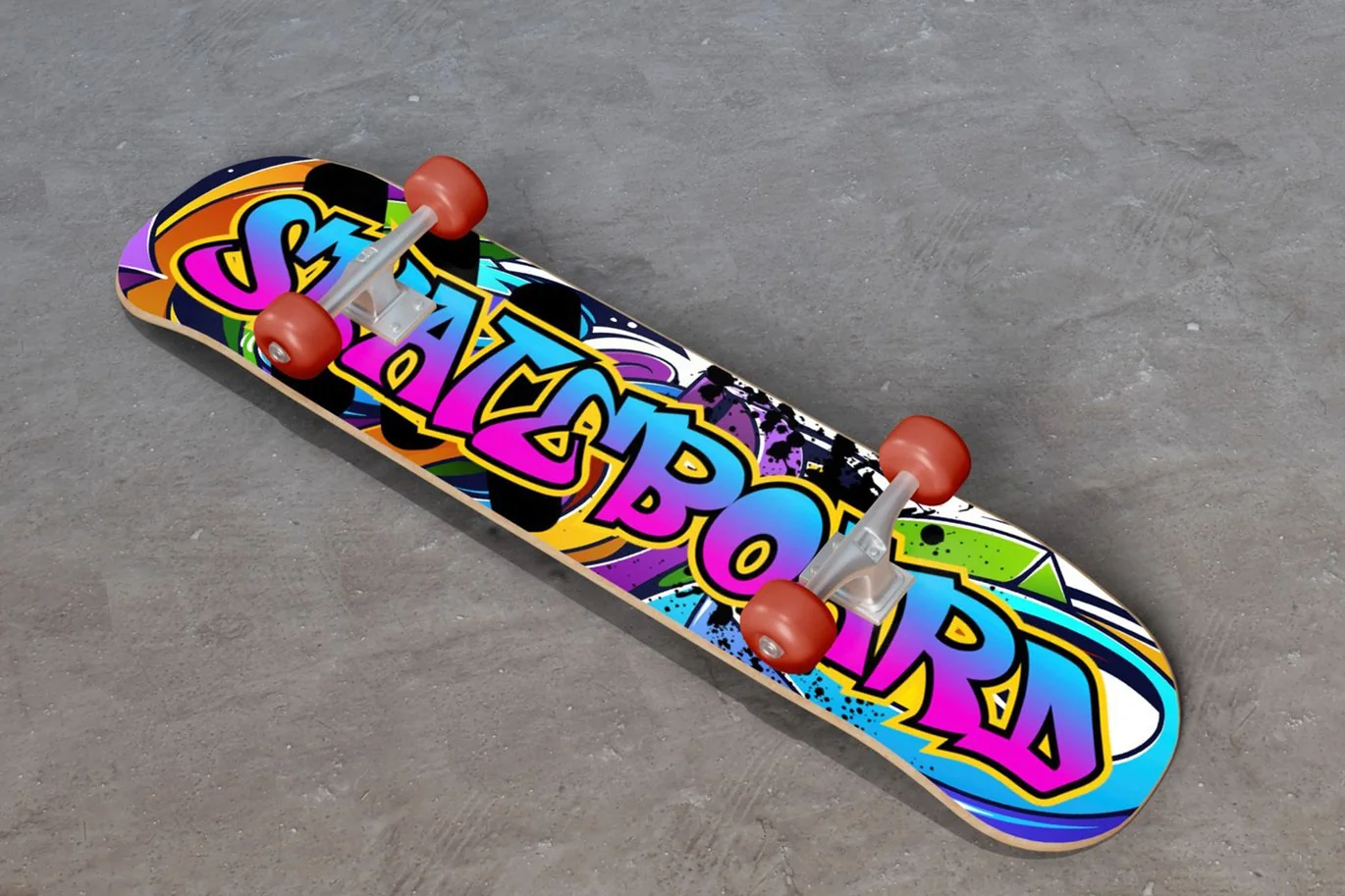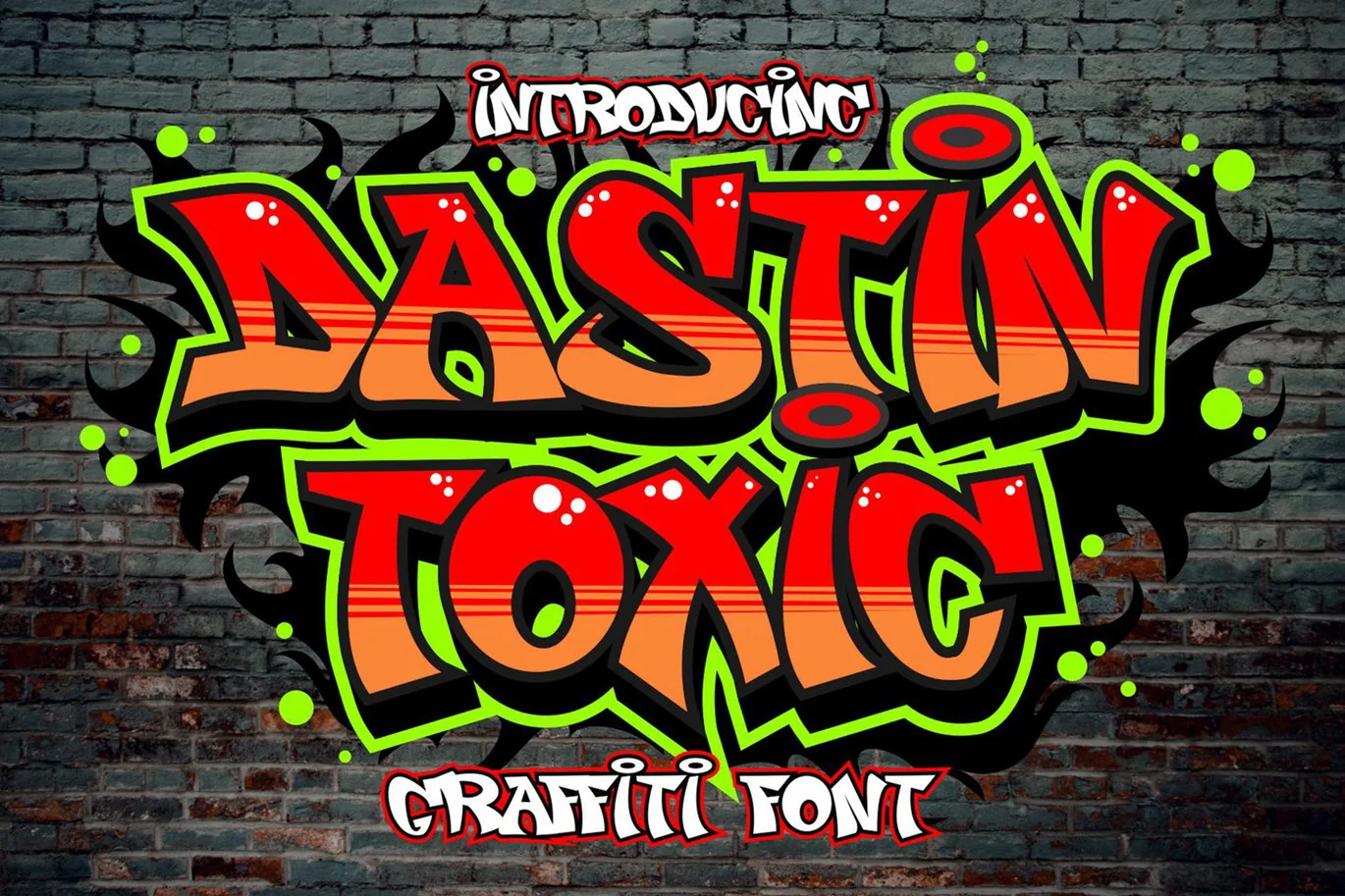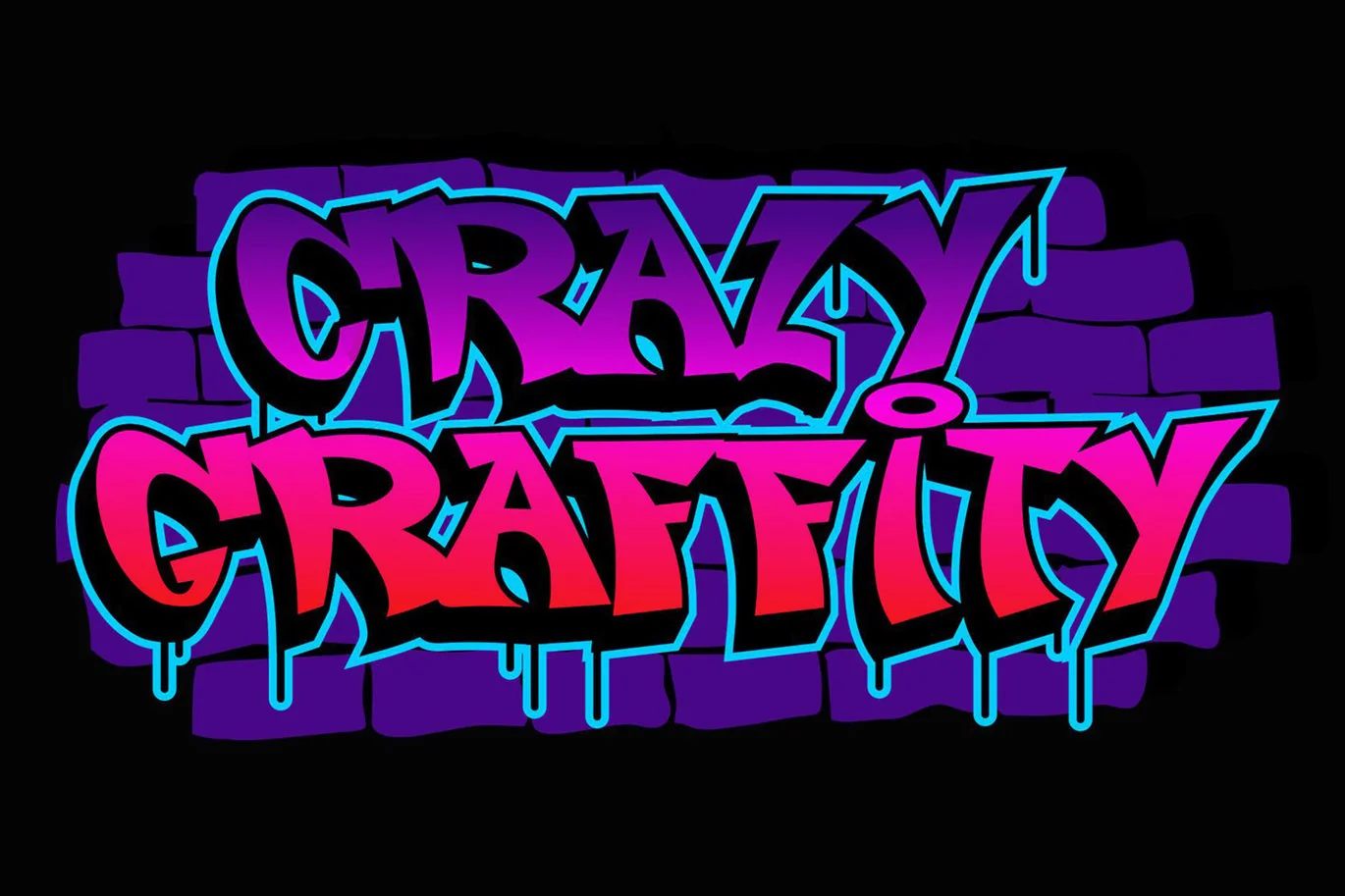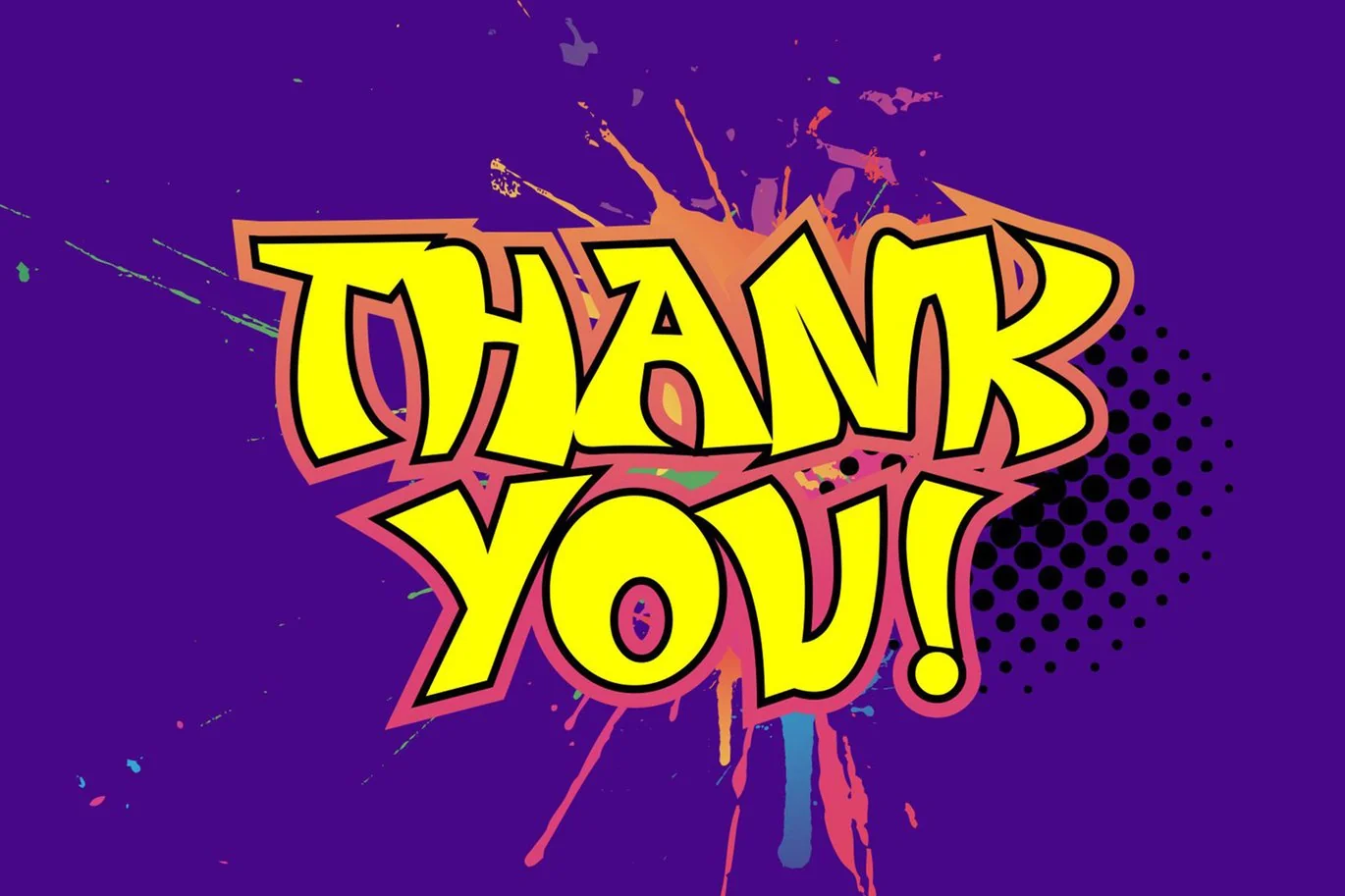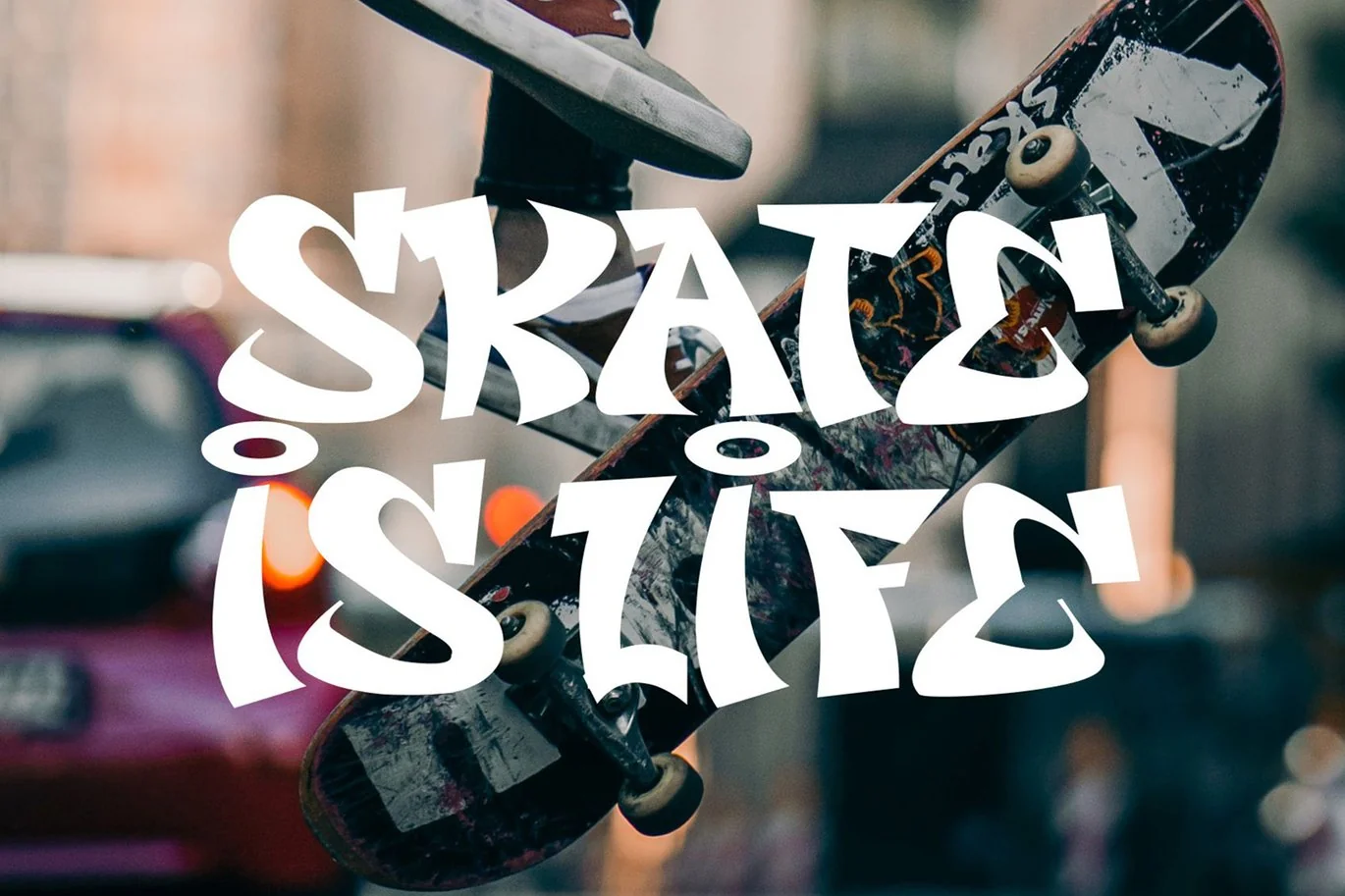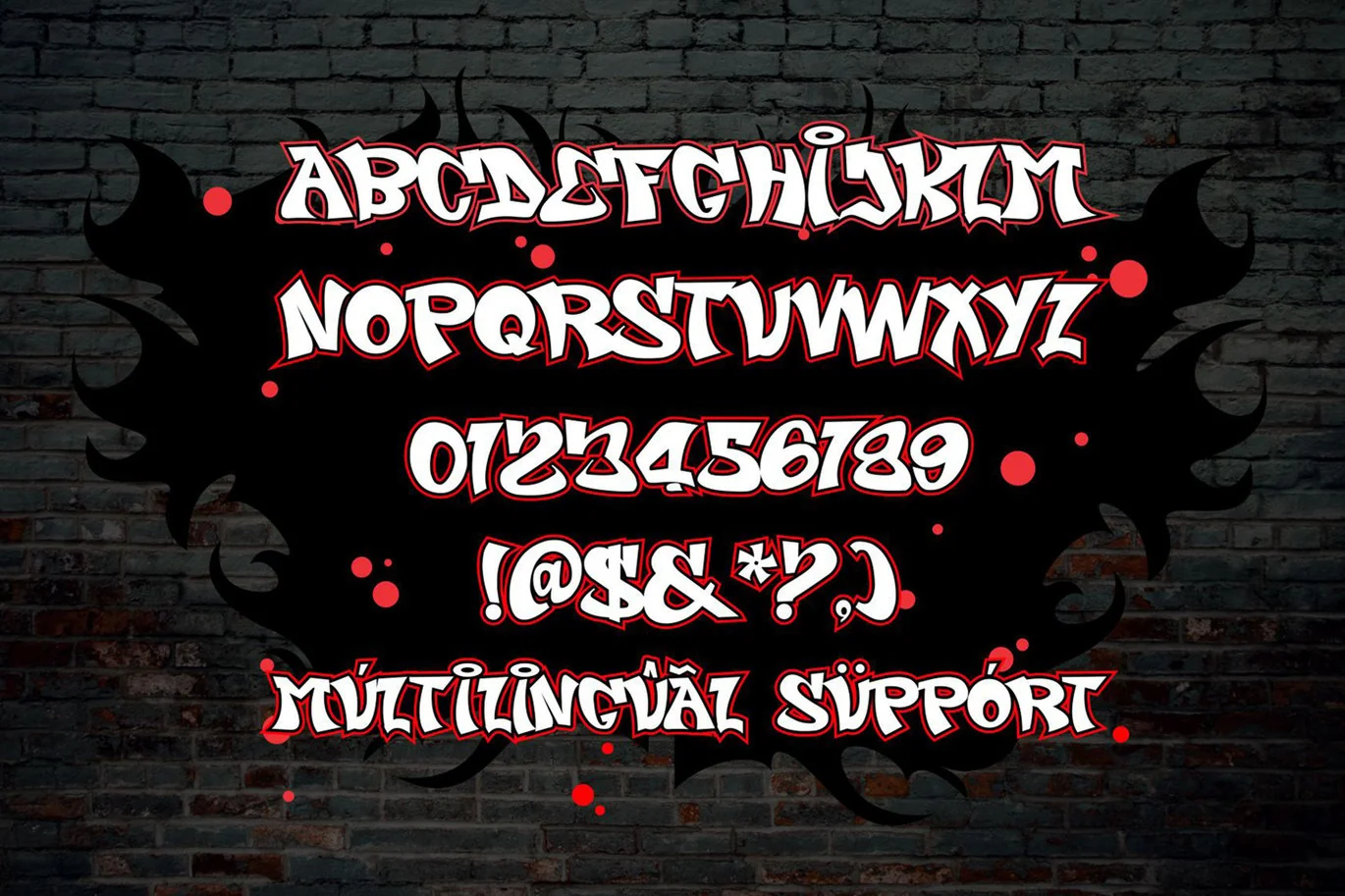
Dastin Toxic – Urban Graffiti Font
Dastin Toxic Graffiti is a spectacular display font, It will elevate a wide range of design projects to the highest level, be it branding, headings, wall art illustration, labels, and much more!